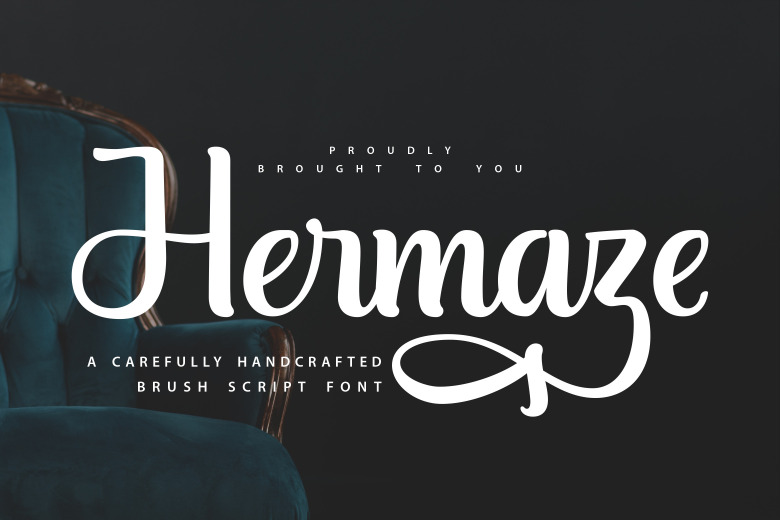
Hermaze Font
Hermaze is a beautiful, eye catching and classically Bold Handwritten Script font. Hermaze was designed to give Your Hand Written Projects An Amazing new Look A bold, confident and dynamic-looking font that will inject tonnes of 80’s-style personality into your project.
Hermaze Handwritten Script Font